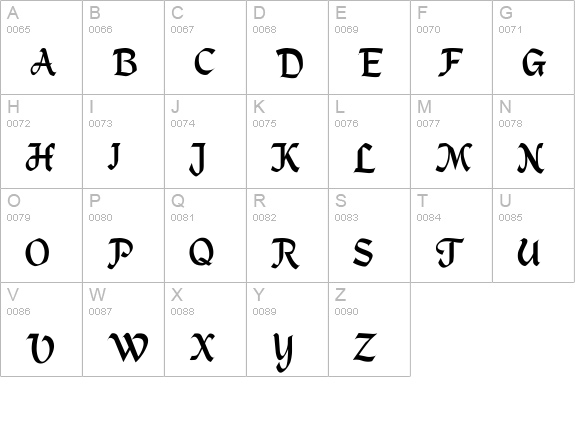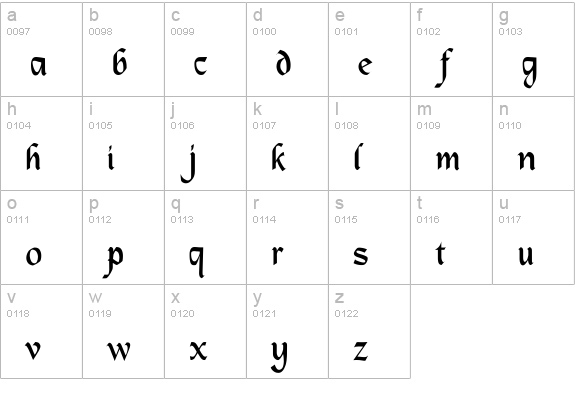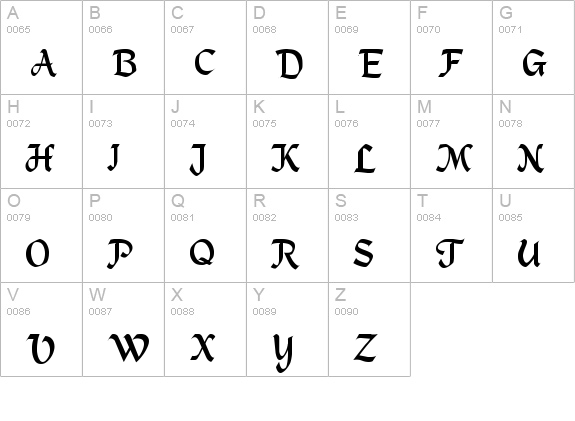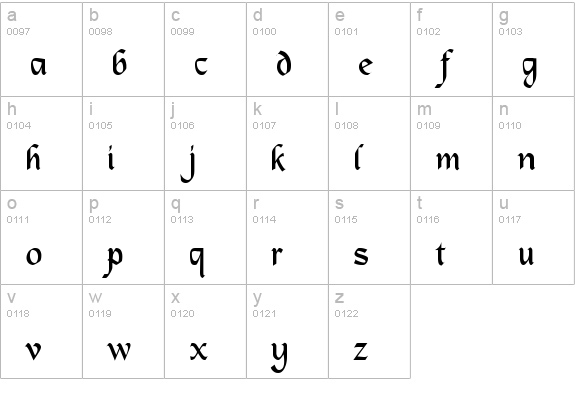
RSMacHumaine Font Details
RSMacHumaine is a versatile and elegant font that exudes sophistication and modernity. Its clean lines and balanced proportions make it perfect for a wide range of design projects, from branding to editorial design. With a subtle touch of humanity in its design, RSMacHumaine brings warmth and approachability to any text it graces. What sets RSMacHumaine apart is not only its aesthetic appeal but also its accessibility - this font is available for free download at FontsMarket.com. Now, you can elevate your designs with this beautiful typeface without any cost constraints. Whether you're working on a personal project or a professional assignment, RSMacHumaine is here to enhance your typography effortlessly. Download it today and experience the power of this stunning font for yourself.